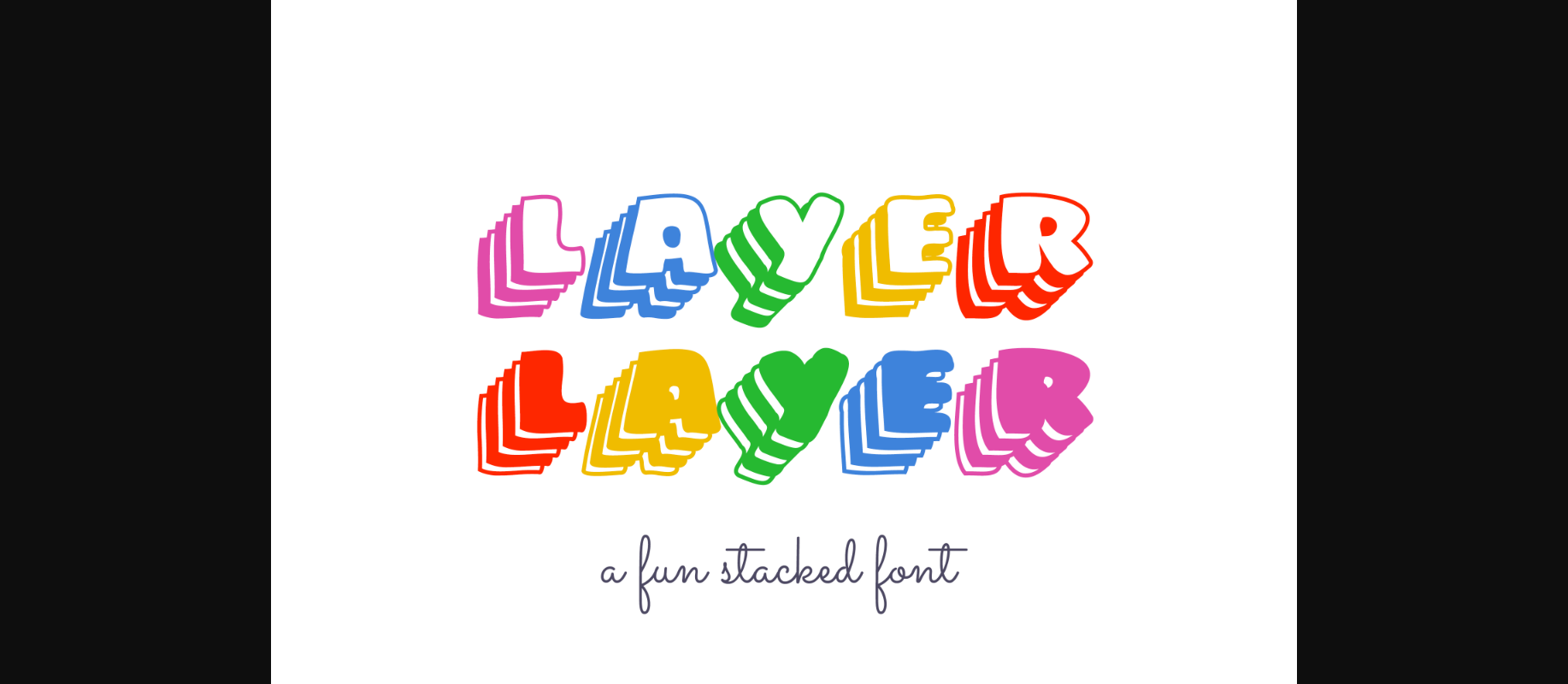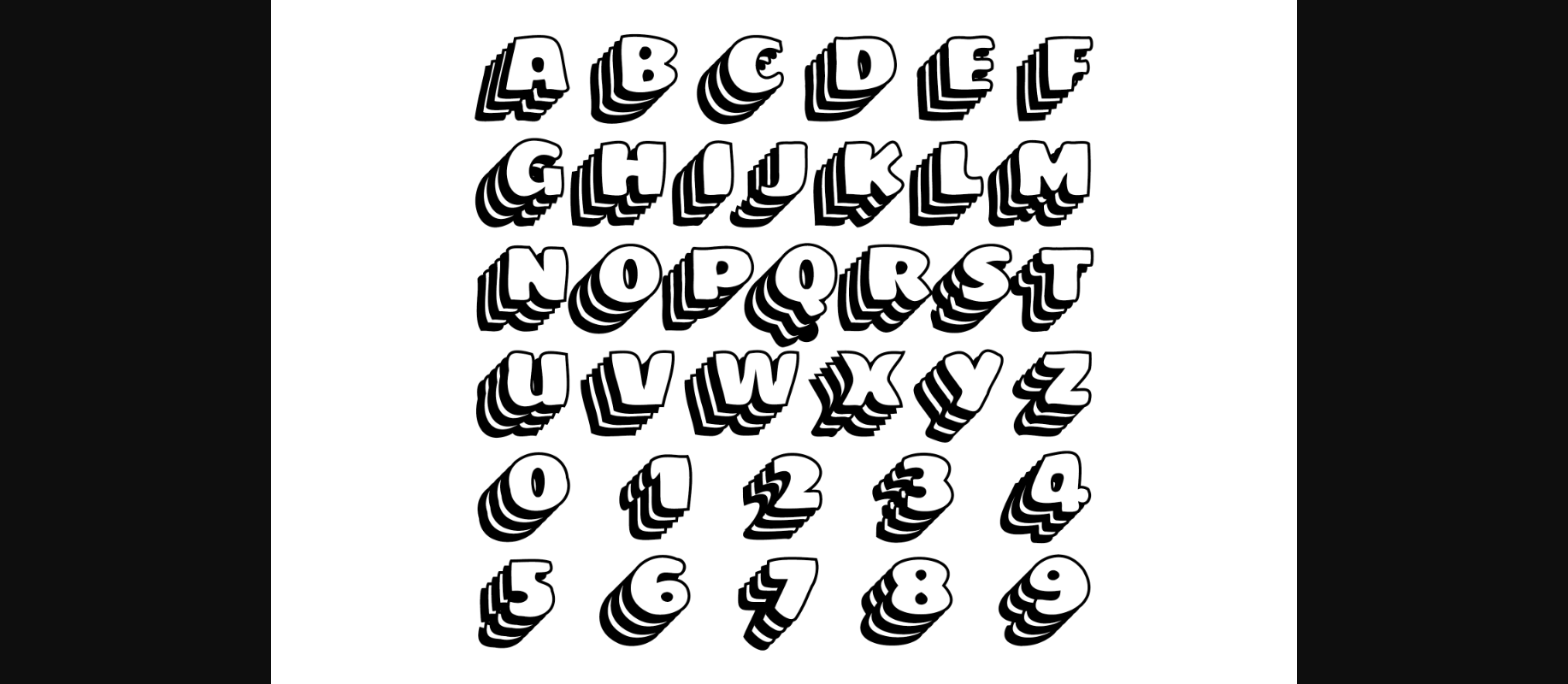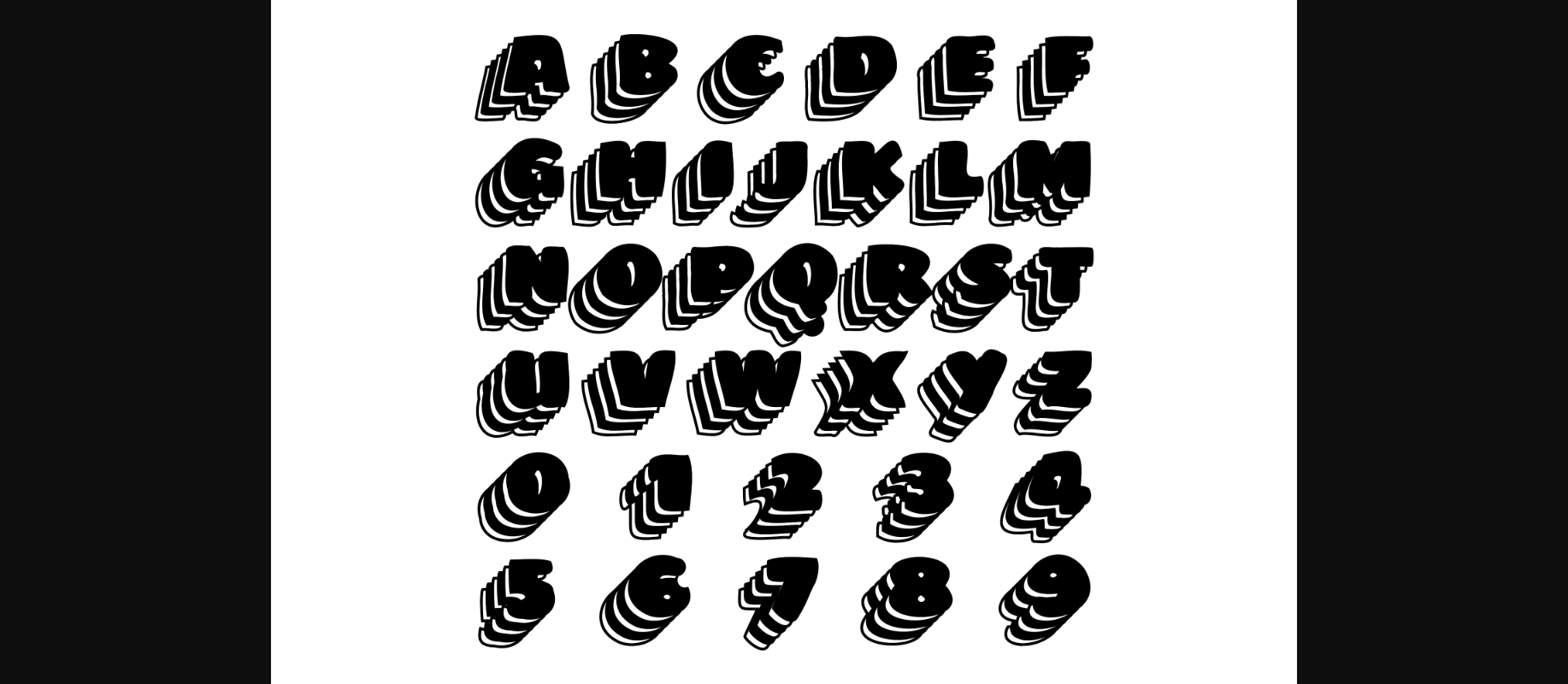
Layer is an incredibly cool and unique decorative font. This modern and bold vibe can easily apply to your favorite designs. This font is PUA encoded which means you can access all of the amazing glyphs and ligatures with ease!